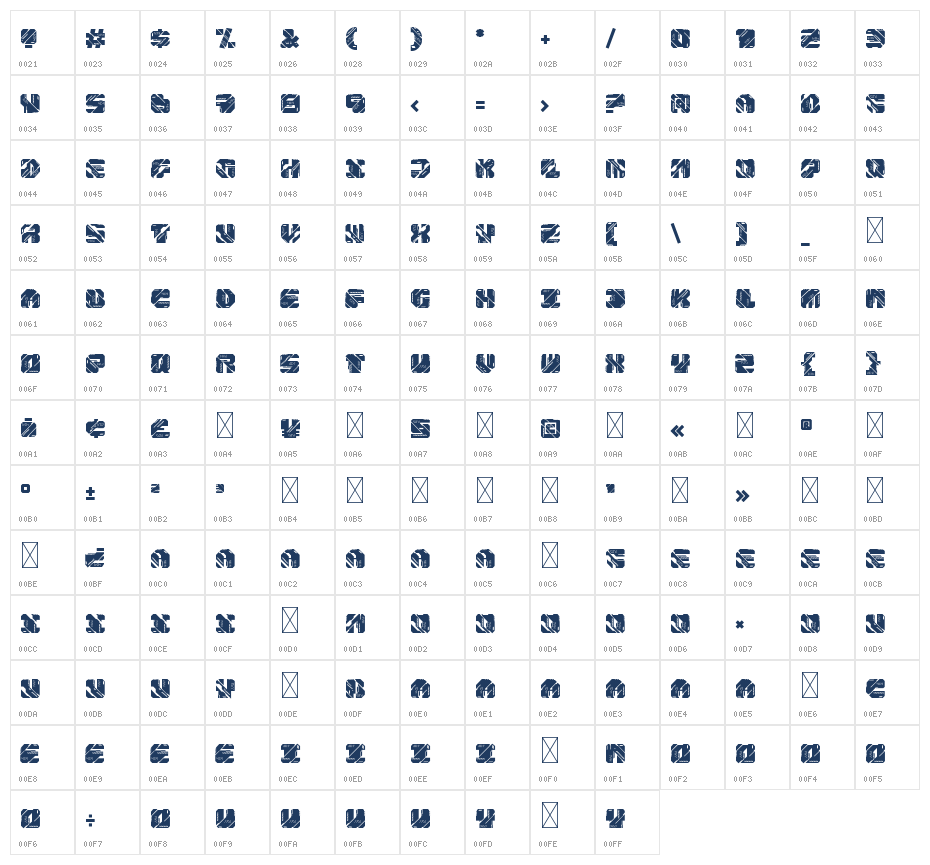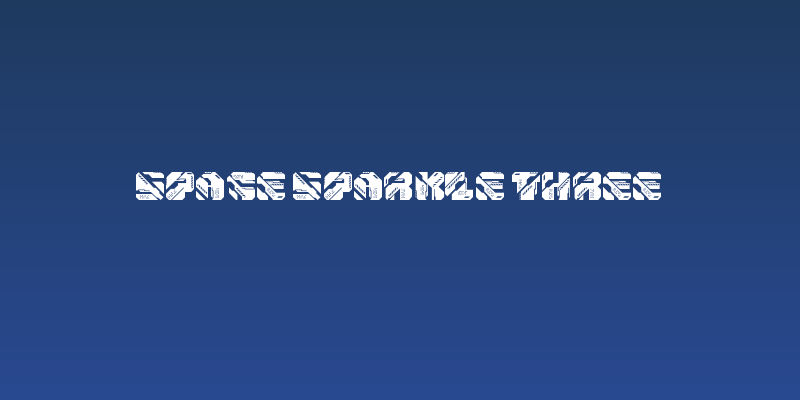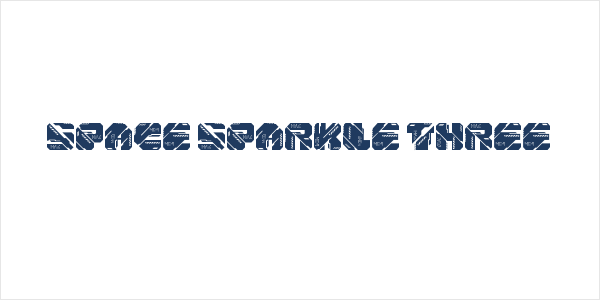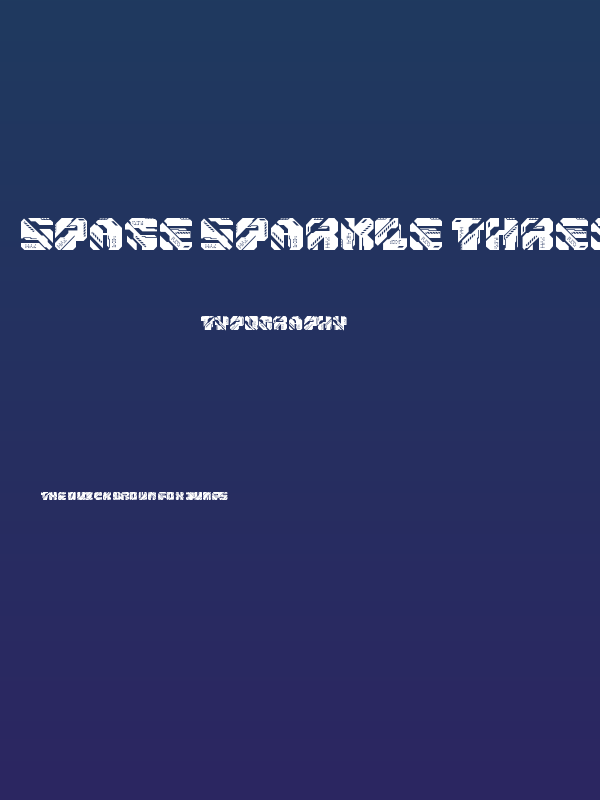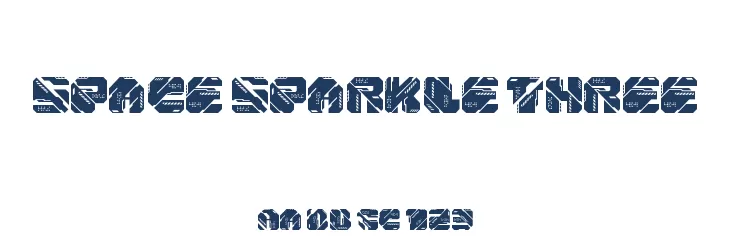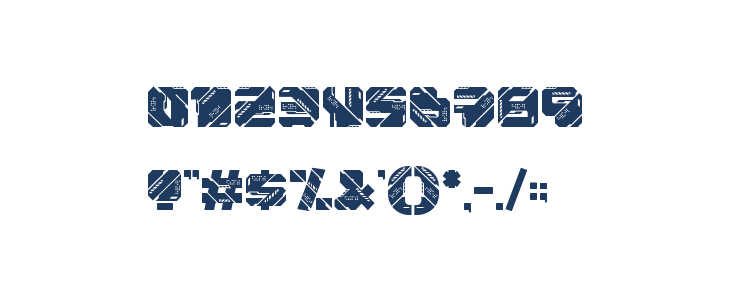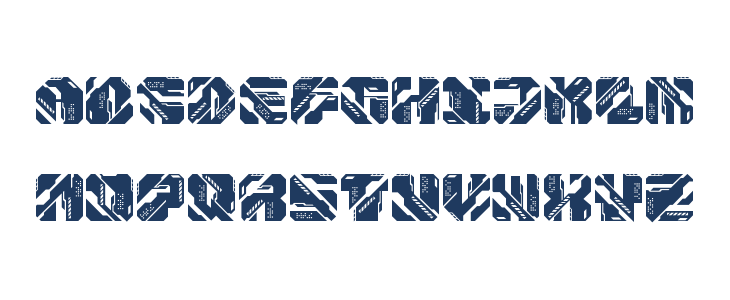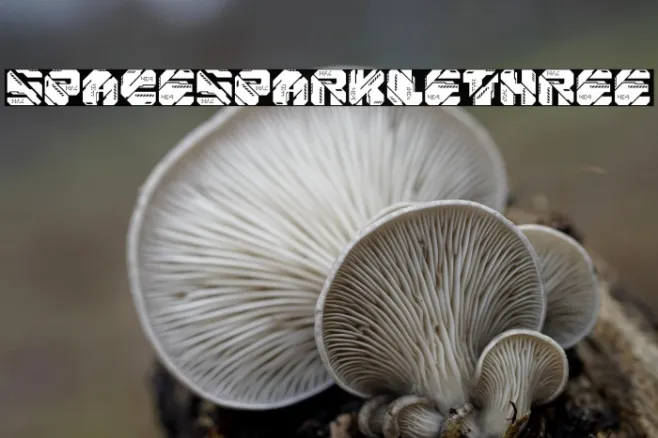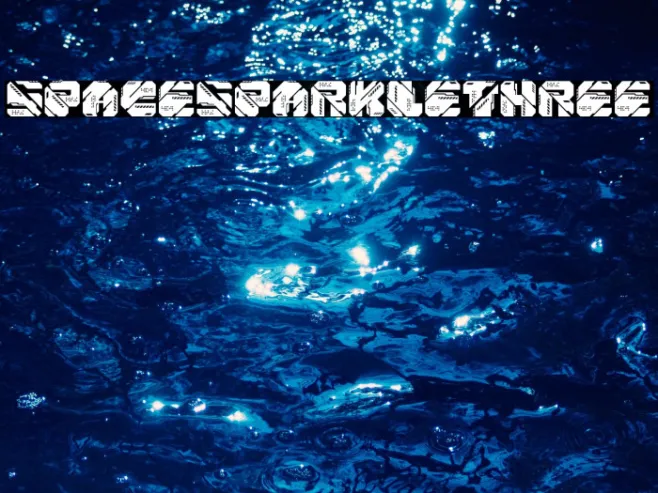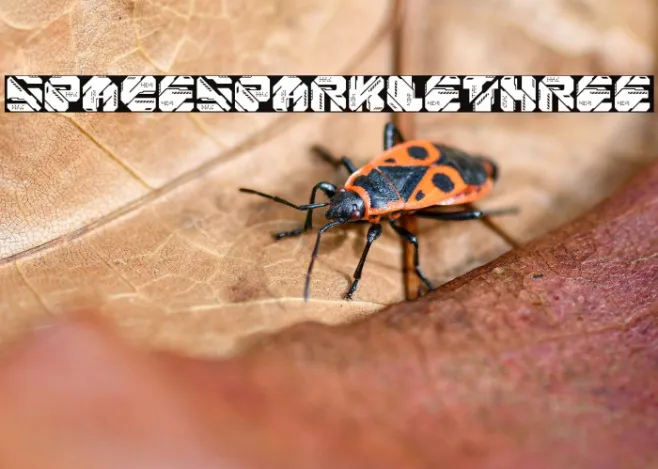
Space Sparkle Three Font
Space Sparkle Three Description
A futuristic, geometric, stencil-like font with a digital or cyber aesthetic, characterized by angular shapes and striped patterns within each character.
| Overall Style | Futuristic, Geometric, Digital |
| Use Case | Headlines, Logos, Titles, Tech branding |